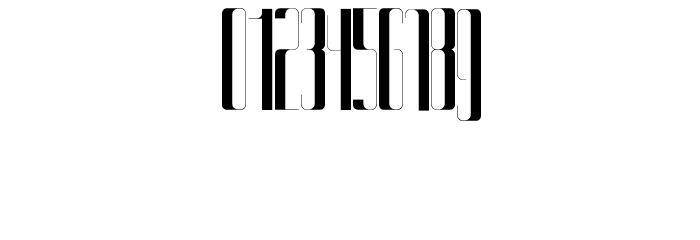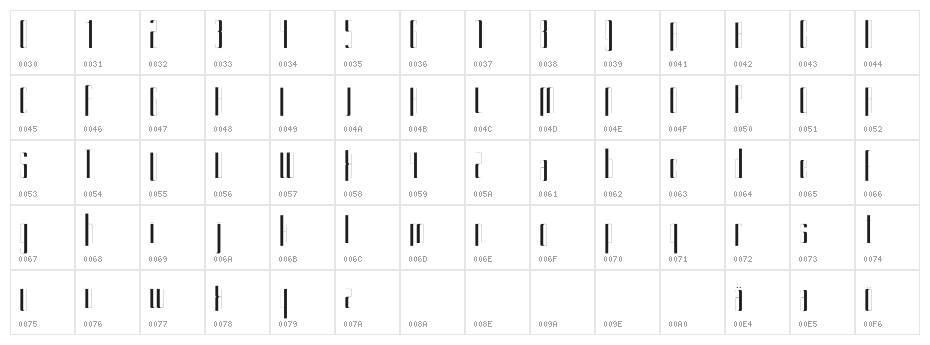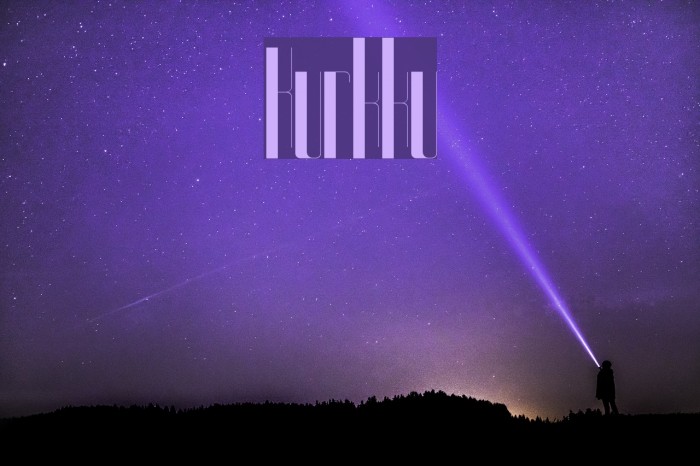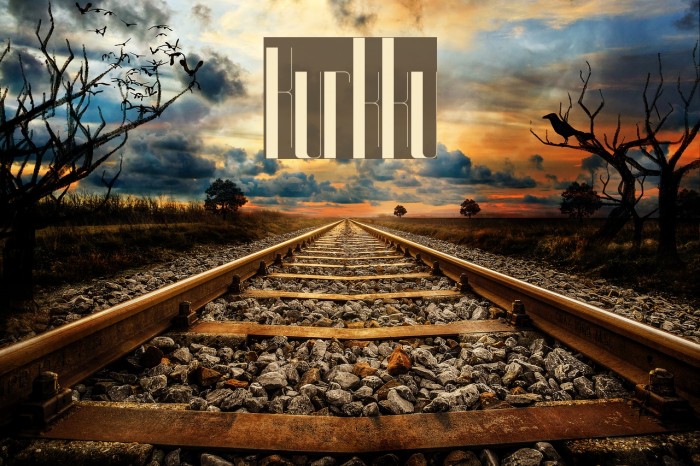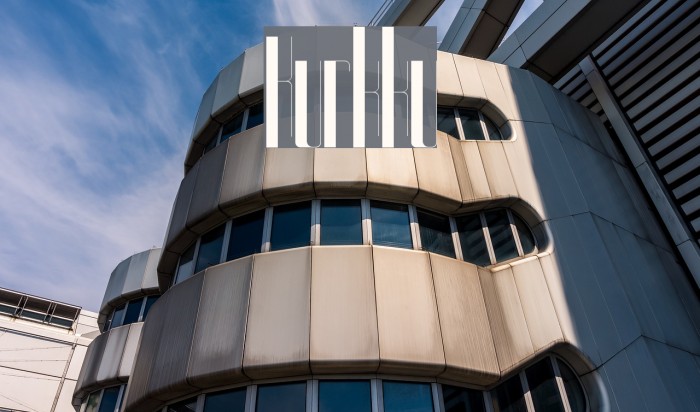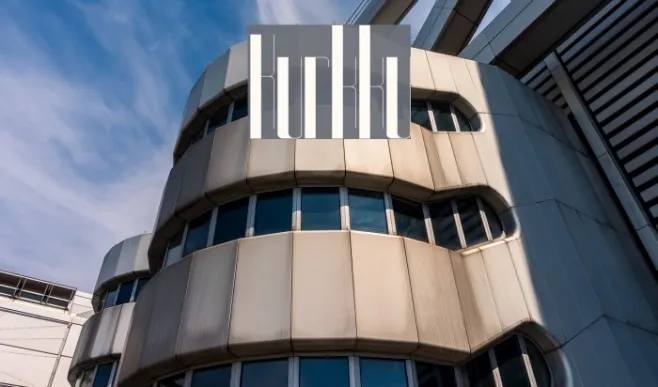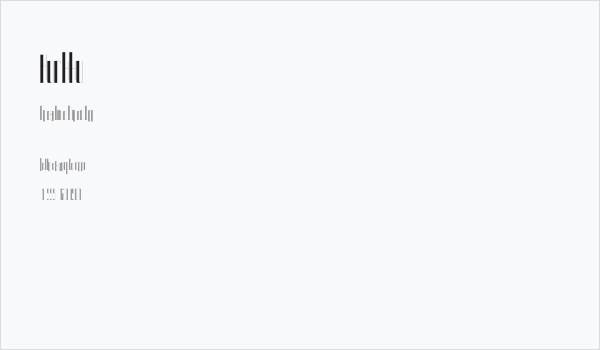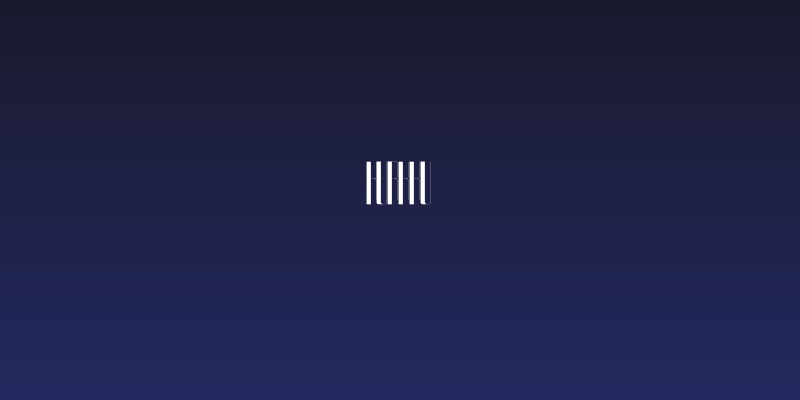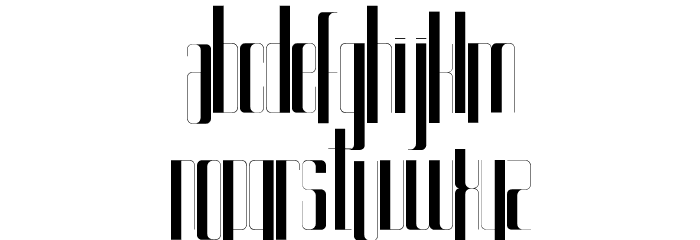
Kurkku Font
Kurkku Description
This font features a striking and modern design with a high contrast between thick and thin strokes. The characters are elongated and have a vertical emphasis, creating a sleek and sophisticated appearance. The uppercase and lowercase letters maintain a consistent style, with unique curves and sharp edges that add to its distinctiveness. The numerals and special characters are designed to match the overall aesthetic, ensuring a cohesive look across all text elements. This font is ideal for making a bold statement in any design project.
| Proposed Projects | Ideal for branding, advertising, and editorial design where a bold and modern look is desired. |